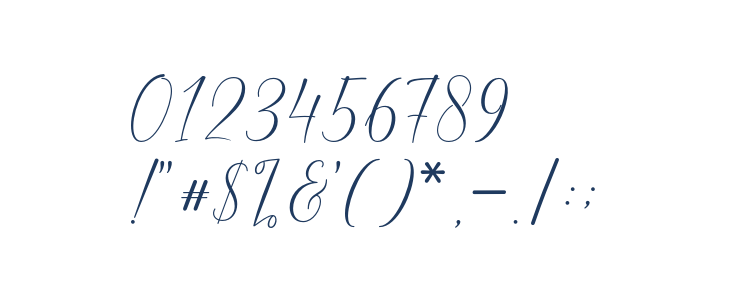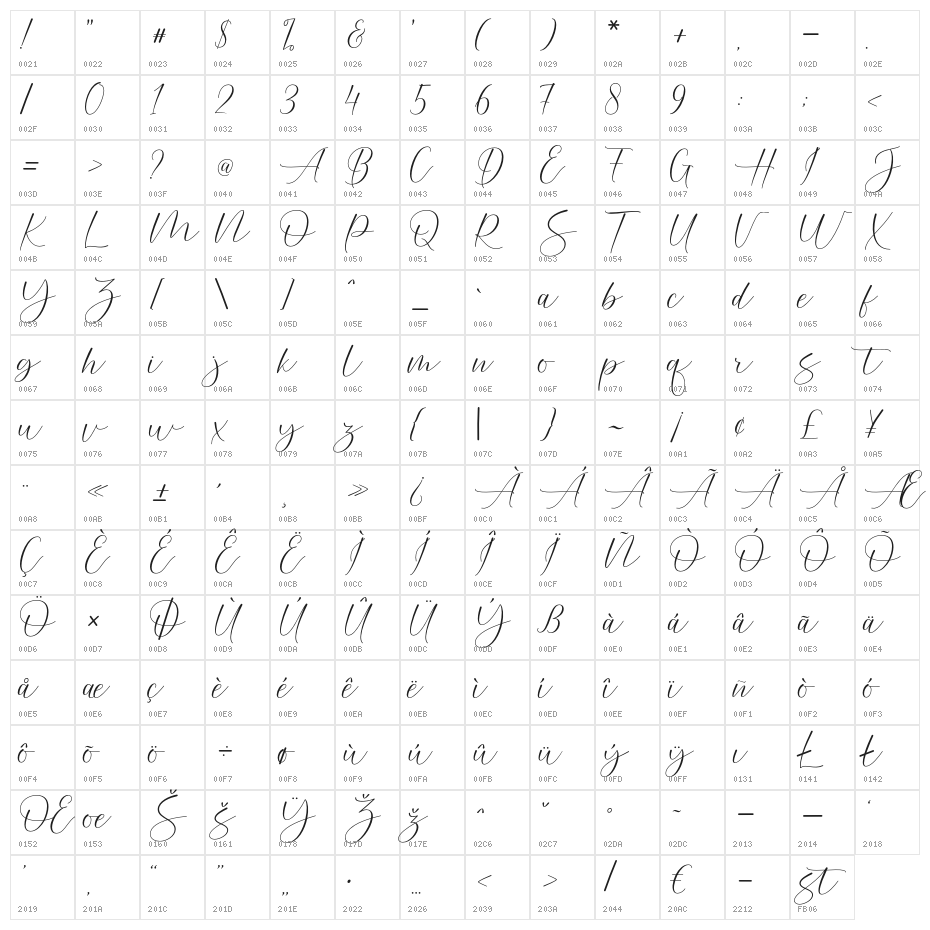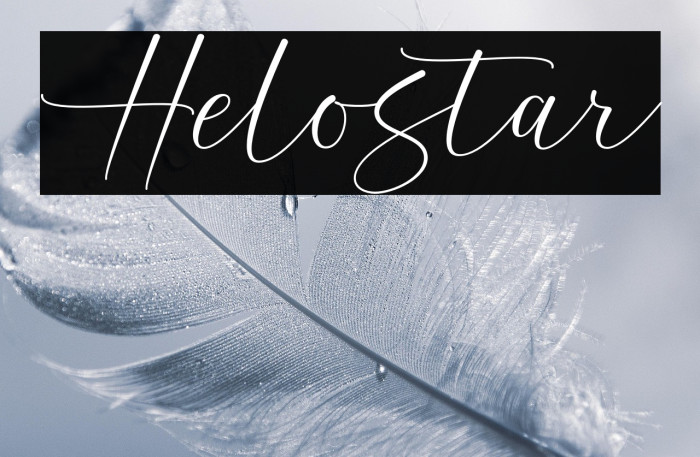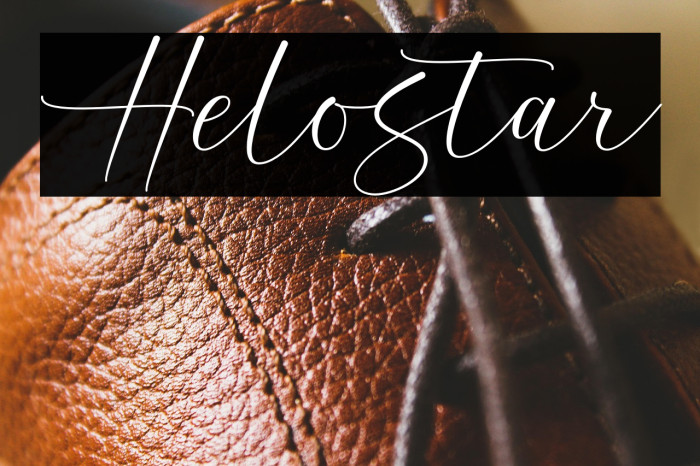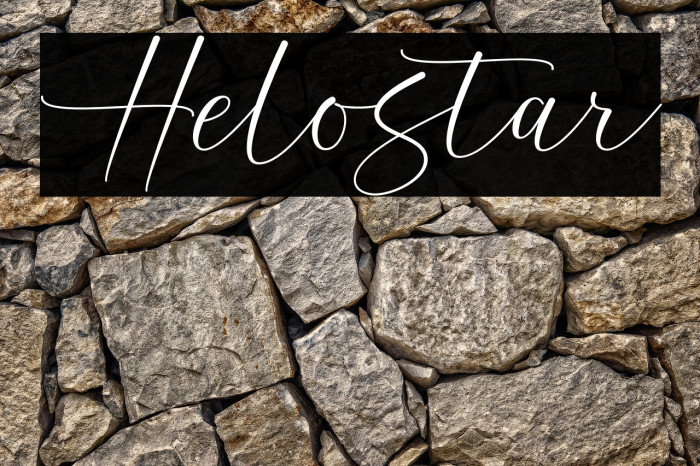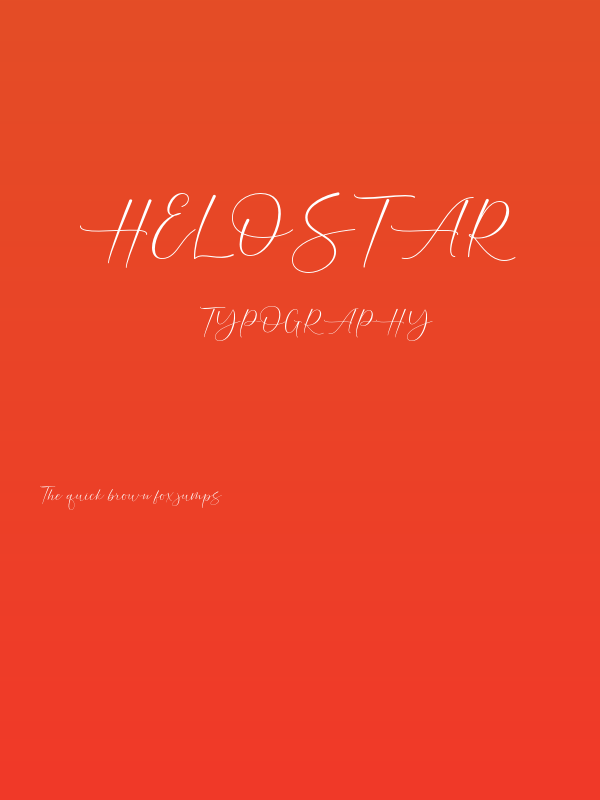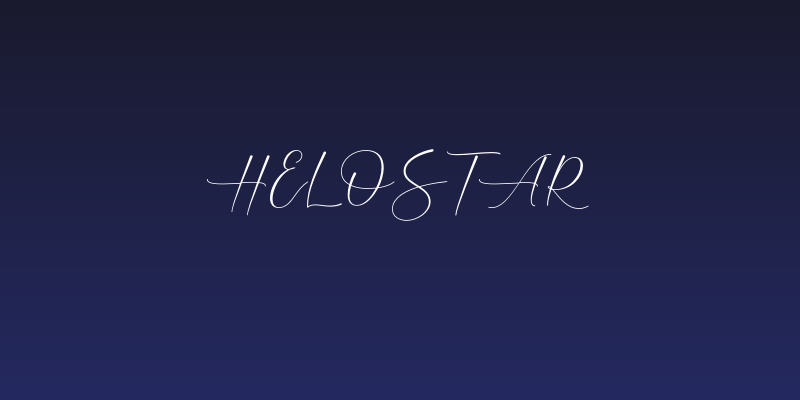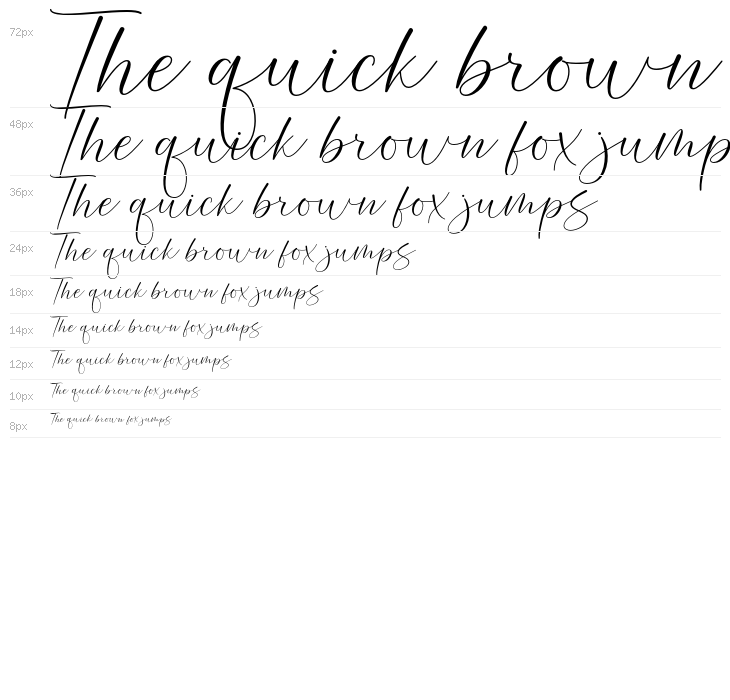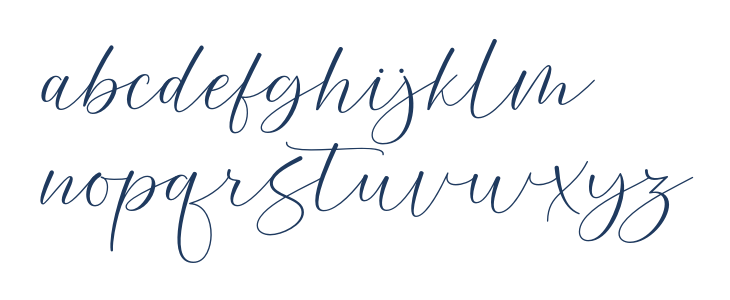
Helostar Font
Helostar Description
This elegant script font features a flowing, cursive style with graceful, sweeping lines and delicate curves. The uppercase letters are characterized by their tall, slender forms and intricate loops, while the lowercase letters maintain a consistent fluidity, enhancing the font's overall elegance. The numerals are designed with a similar flair, offering a cohesive look across all characters. Special characters are thoughtfully integrated, maintaining the font's sophisticated aesthetic. The font's thin strokes and high contrast between thick and thin lines contribute to its refined appearance, making it suitable for projects that require a touch of class and sophistication.